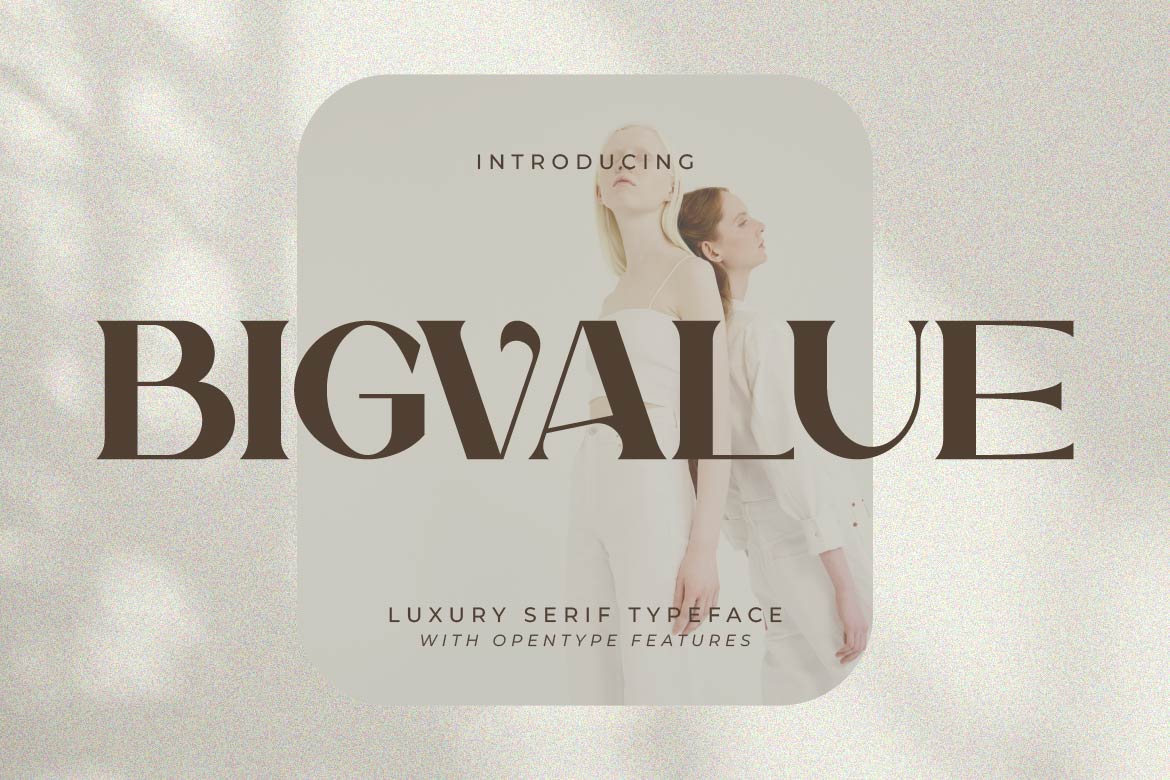
- Bigvalue – Luxury Premium Jewelry Serif Font
True luxury is defined by the details—and Bigvalue was designed to celebrate them.
Bigvalue is a luxury premium serif typeface crafted for jewelry houses, fine boutiques, beauty labels, and high-end lifestyle brands. Featuring refined serif details, graceful proportions, and timeless elegance, Bigvalue creates a sophisticated visual identity that feels exclusive, polished, and enduring.
Perfect for jewelry logos, luxury packaging, boutique branding, cosmetic labels, perfume boxes, fashion editorials, wedding stationery, premium catalogs, and elegant social media campaigns, this typeface elevates every design with effortless prestige. Its balanced contrast delivers beautiful headlines while maintaining exceptional readability across both print and digital applications.
Whether you’re launching a fine jewelry collection or building a premium lifestyle brand, Bigvalue provides the elegance and confidence expected from truly luxurious typography.
Bigvalue isn’t just a serif font—it’s a signature of timeless luxury and refined craftsmanship.